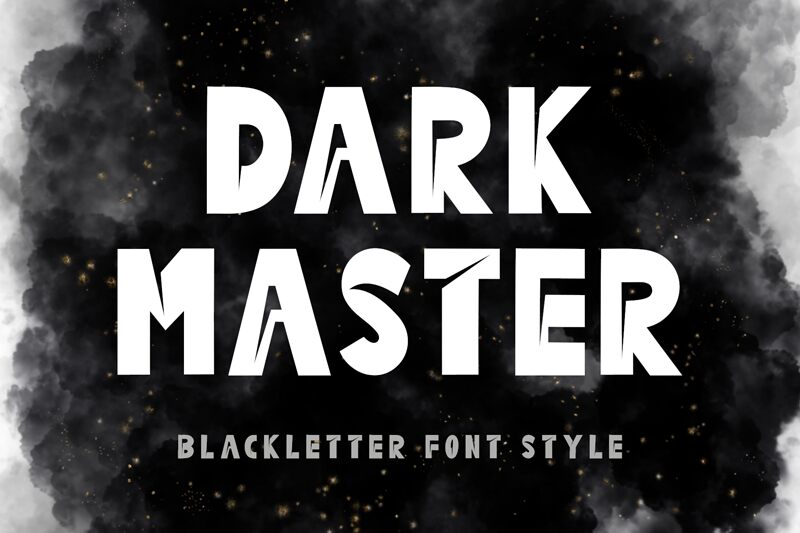
Dark Master font by Yoga Letter focuses on form and function. The free Gothic-style font looks modern through geometric features, while still paying homage to more classic Gothic letterforms. High contrast between thin and thick lines helps the font make a bold impression while maintaining an elegant presentation.
Dark Master was crafted for both physical and digital use. As such, some uses may include editorial layouts, websites and apps, product packaging, and printed designs. The font also looks great on posters and billboards or in other branding projects.